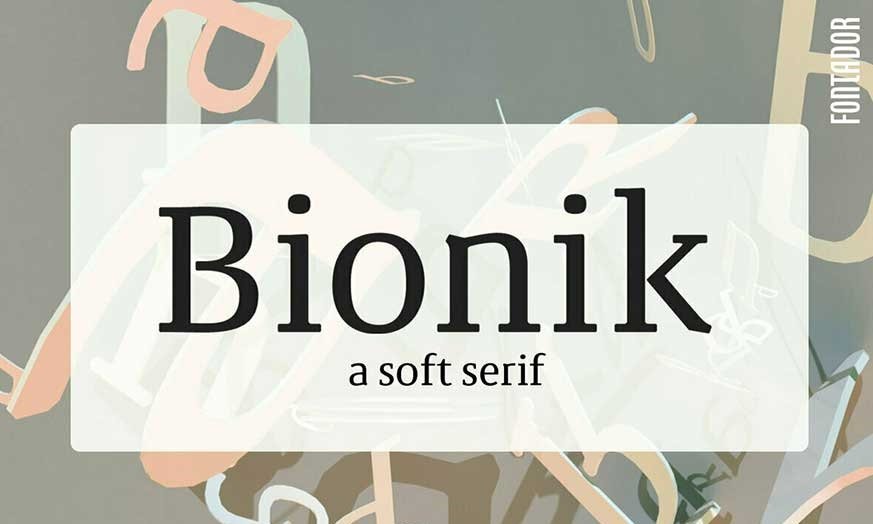
Bionik Font Family
Bionik is a squarish serif, especially designed for contemporary typography on print and screen.
The super ellipse-based forms and high x-height allow large and open letterforms, perfectly adapted to the pixel grid on screen.
With light rounded corners Bionik provides a soft and friendly atmosphere.